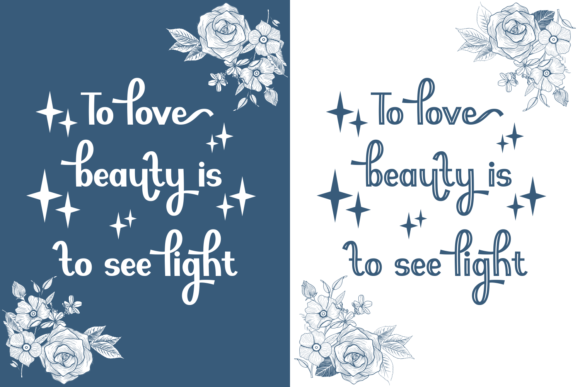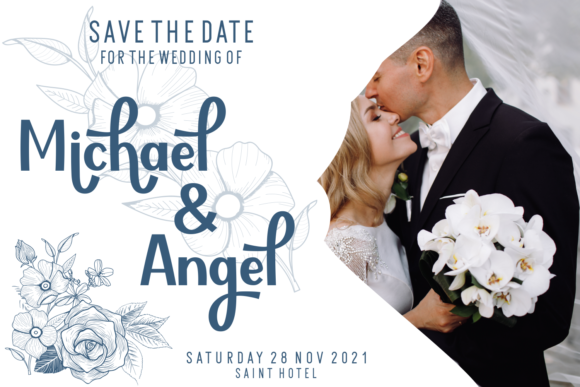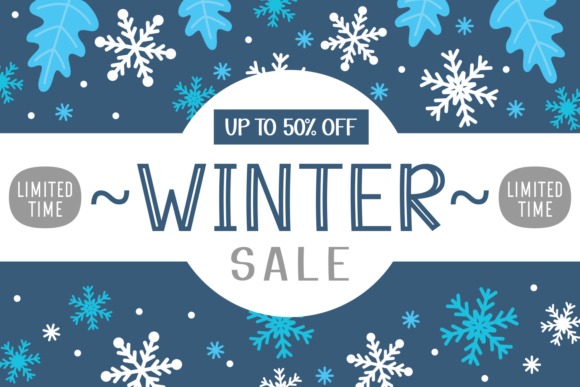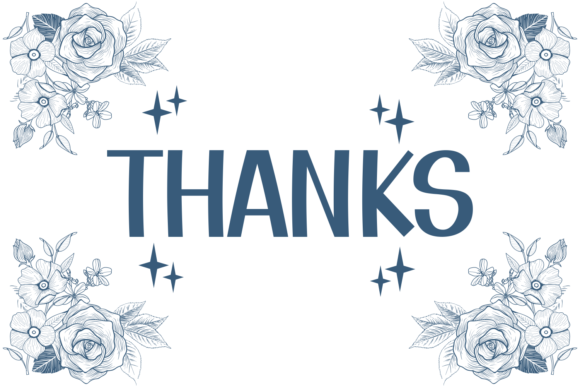
Discover the Radiant Beauty of Beauty Shine Font
Have you ever been inspired by a stunning font and felt an overwhelming urge to create something truly breathtaking? For designers like us, this moment of inspiration is a spark that sets our imagination ablaze. And today, I’m excited to share with you a font that embodies the essence of elegance and sophistication – the Beauty Shine Font.
This exquisite duo font is carefully crafted to transport your designs to a realm of luxury and refinement. With its PUA encoding, you’ll have access to a world of glyphs and swashes that will take your typography to new heights. Whether you’re creating a high-end fashion brand, a wedding invitation, or a luxurious product brochure, the Beauty Shine Font is the perfect companion to help you shine.
As a designer, you know the importance of selecting the right font to elevate your work. The Beauty Shine Font is a valuable addition to your toolkit, offering a level of sophistication and glamour that’s sure to leave a lasting impression. So why settle for ordinary when you can shine with the Beauty Shine Font?
Key Features of Beauty Shine Font
- Font Family: Beauty Shine Font is a unique, elegant script font with a touch of sophistication.
- Character Set: Includes a comprehensive set of characters, including uppercase and lowercase letters, numbers, and punctuation marks.
- Unique Characteristics: Features a unique, hand-drawn design with subtle flair and elegance, making it perfect for creating eye-catching headings and titles.
Designer Review: Beauty Shine Font
✨ One of the standout features of the Beauty Shine Font is its versatility. It’s perfect for creating eye-catching headlines and titles, with its elegant and modern design.
✨ Another advantage is its legibility. The font is clear and easy to read, even at smaller sizes. This makes it ideal for body text as well.
✨ The font’s high-quality design also ensures that it looks great in both digital and print formats.
Limits and Drawbacks
⚠️ The main limitation of the Beauty Shine Font is its lack of expressiveness. It’s a bit too straightforward and lacks the unique character that some designers might be looking for.
⚠️ Additionally, the font’s design can feel a bit generic at times, making it less likely to stand out in crowded markets.
⚠️ Another drawback is the limited number of font weights and styles available. This can make it difficult to achieve the desired level of sophistication or elegance.
In conclusion, the Beauty Shine Font is a solid choice for designers looking for a clean and modern font. While it may lack some expressiveness and character, its versatility and legibility make it a great option for a wide range of applications.
Recommendation
If you’re looking for a font that’s easy to read and looks great in both digital and print formats, the Beauty Shine Font is definitely worth considering. However, if you’re looking for a font with a bit more personality, you may want to look elsewhere.
Design Tips
- Use the Beauty Shine Font for headings and titles to add a touch of elegance to your designs.
- Pair the Beauty Shine Font with other modern fonts to create a cohesive and sophisticated look.